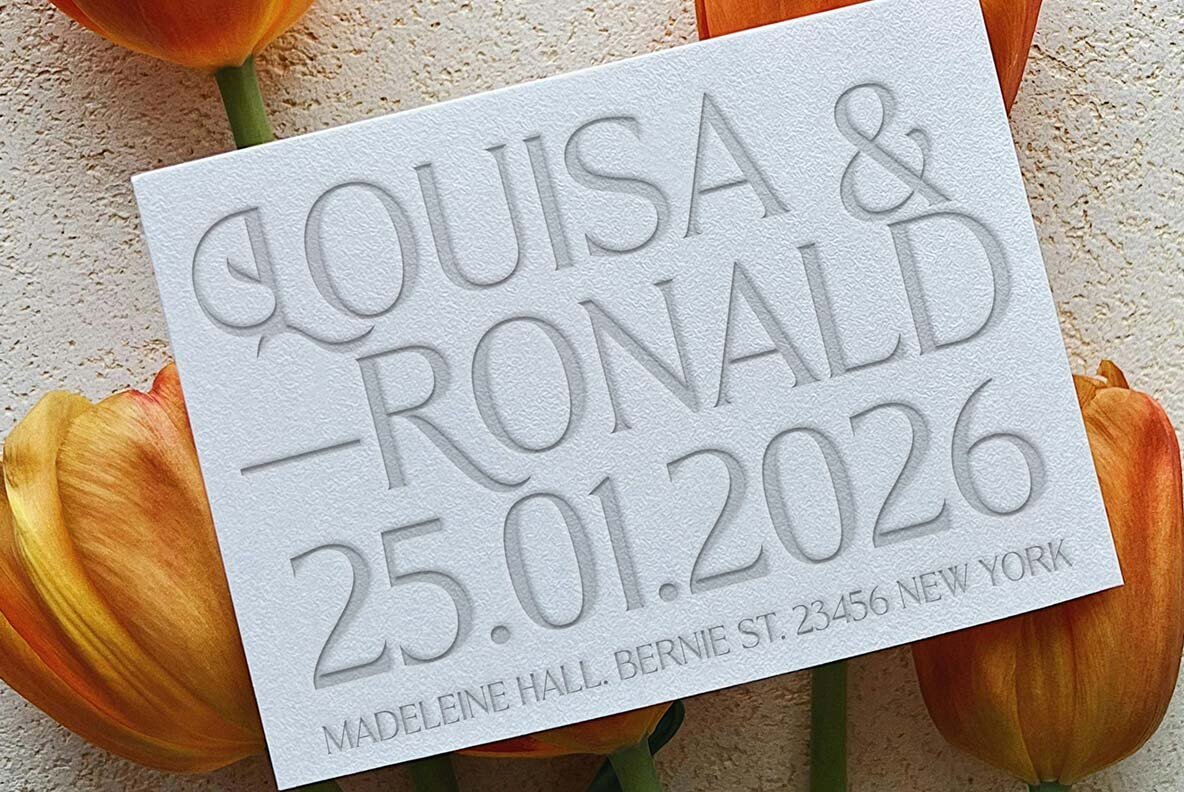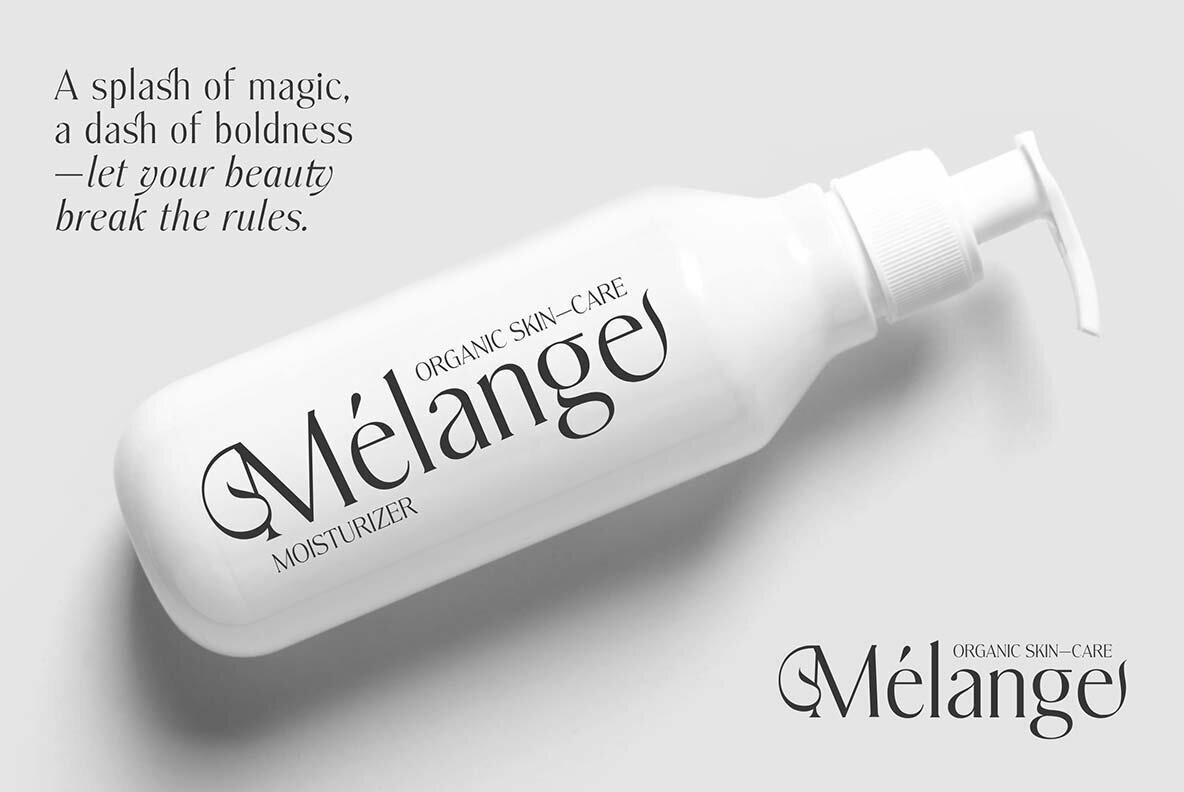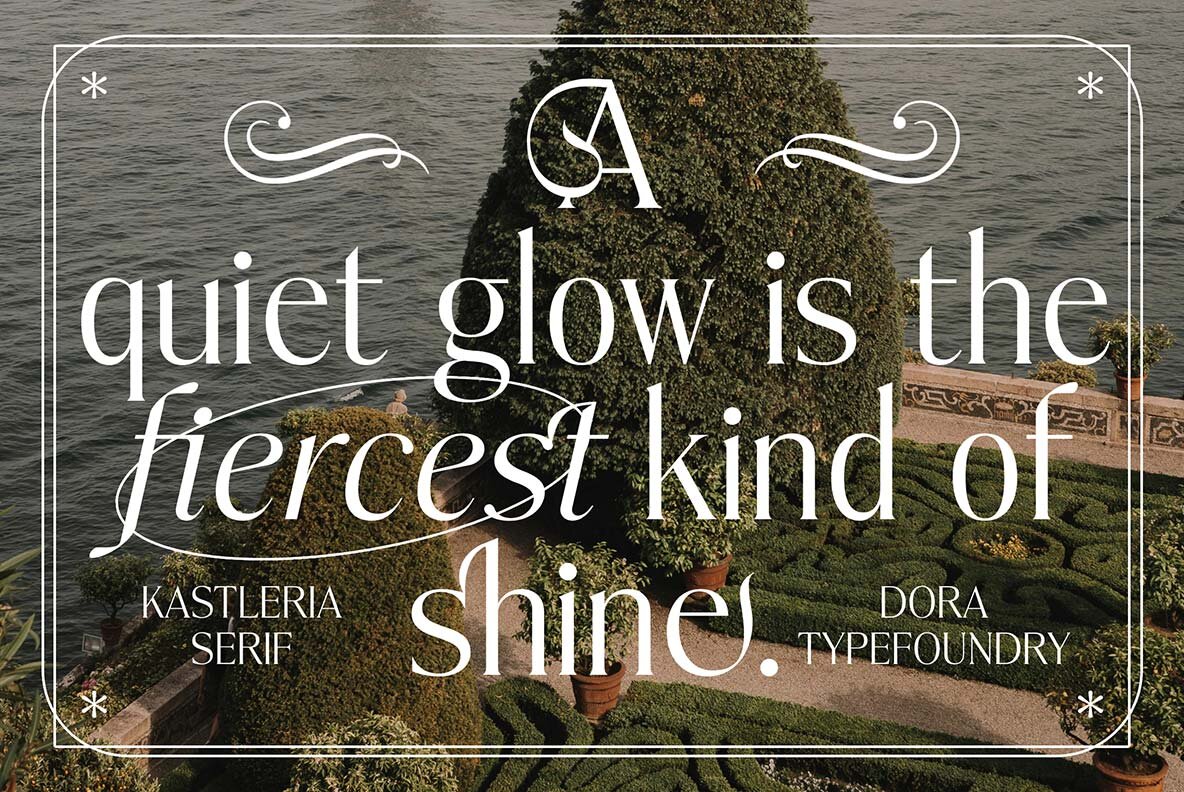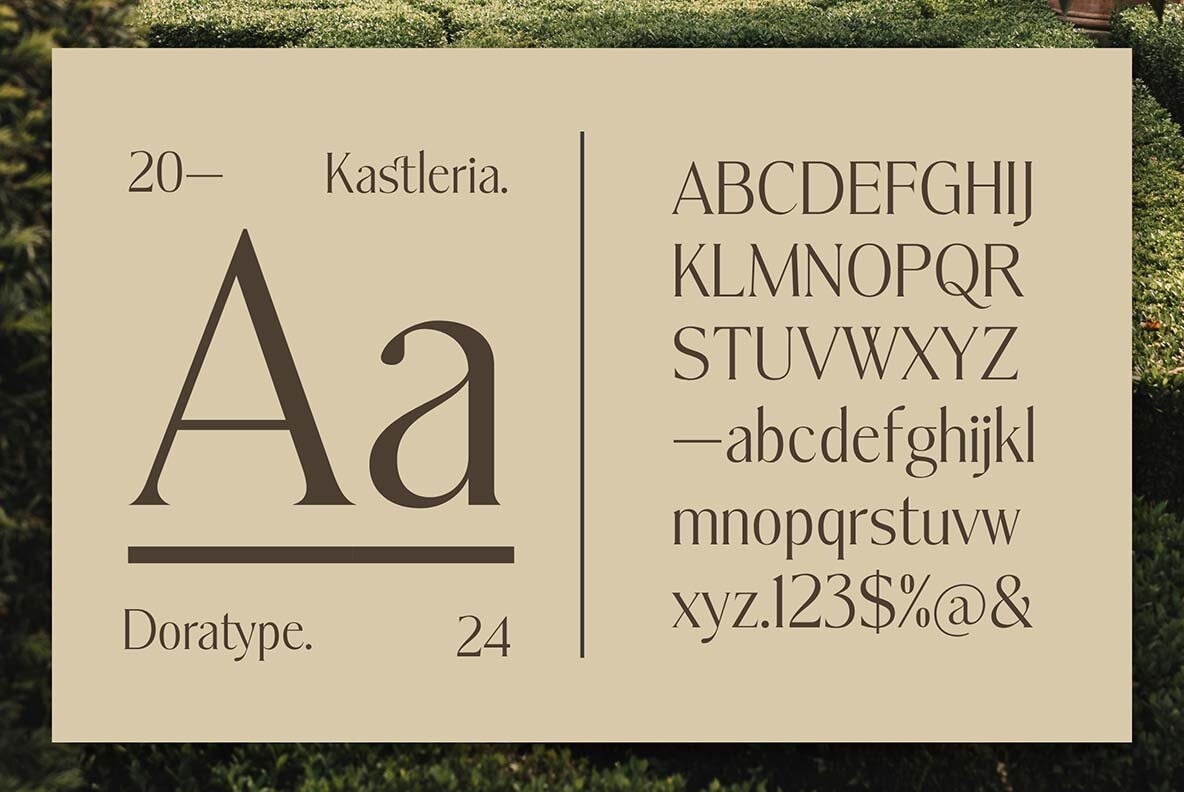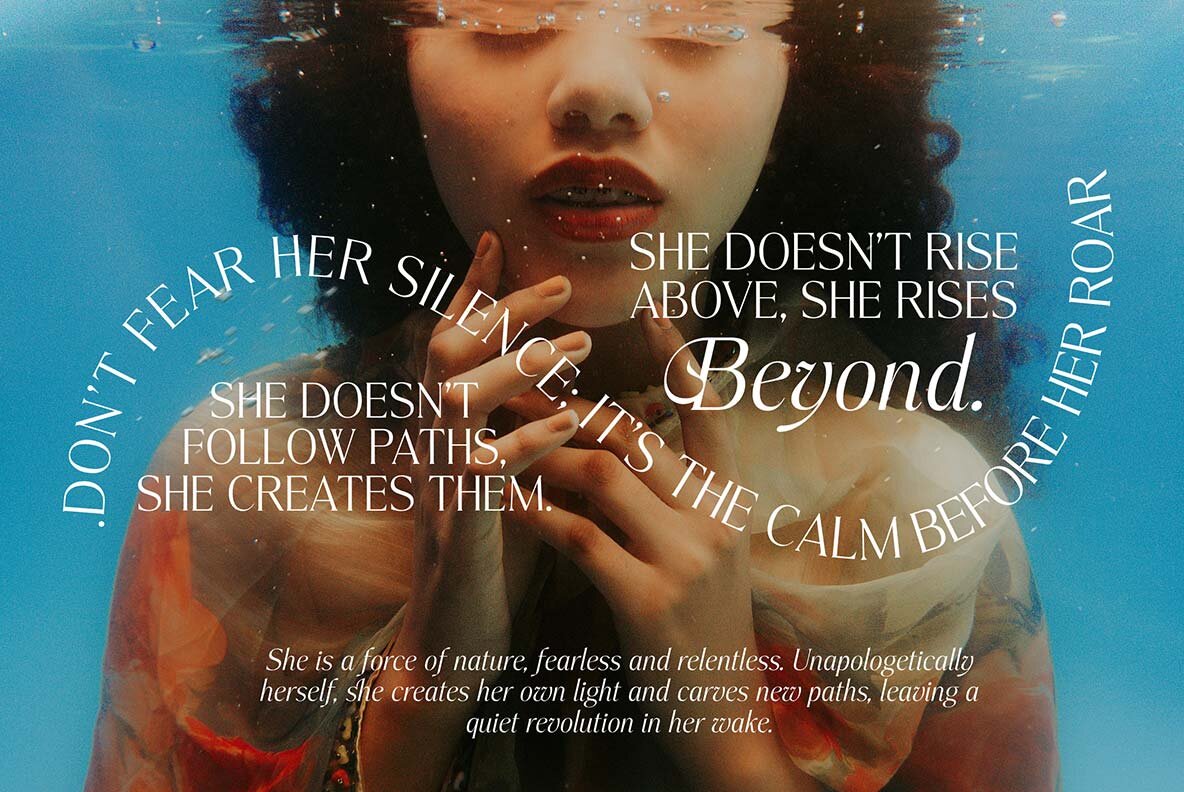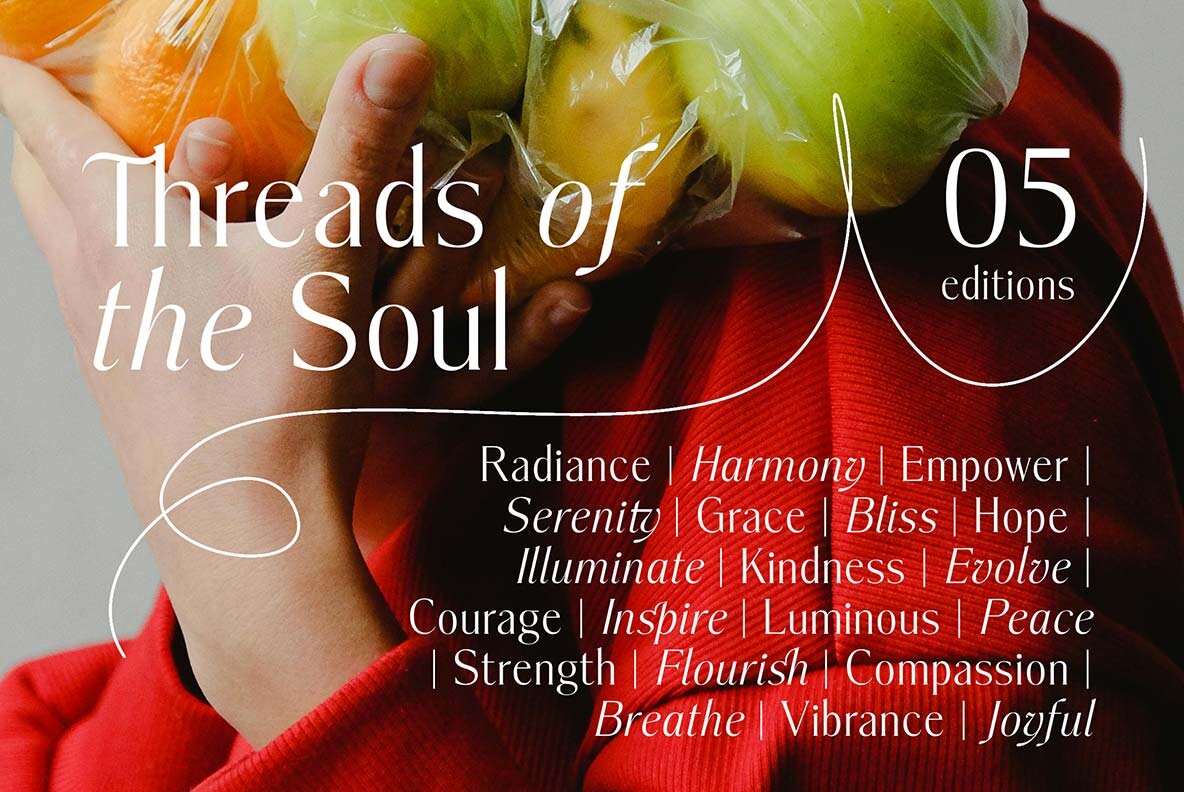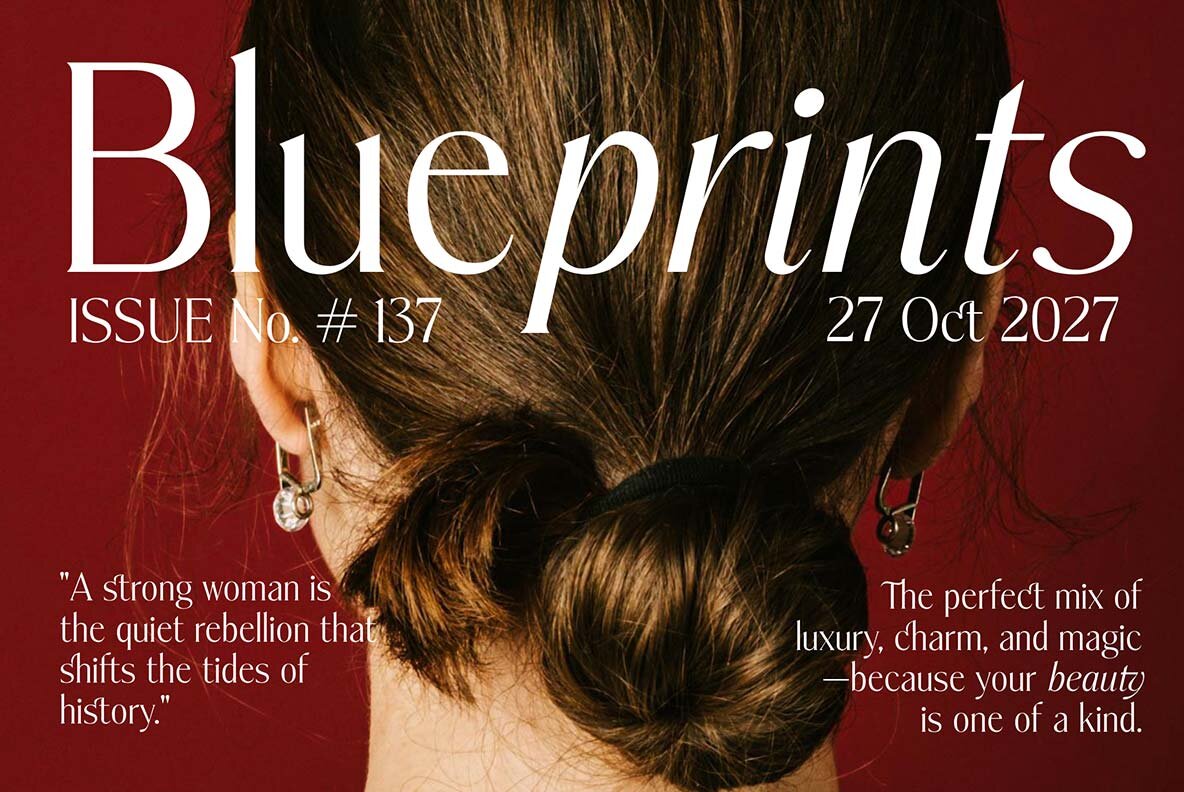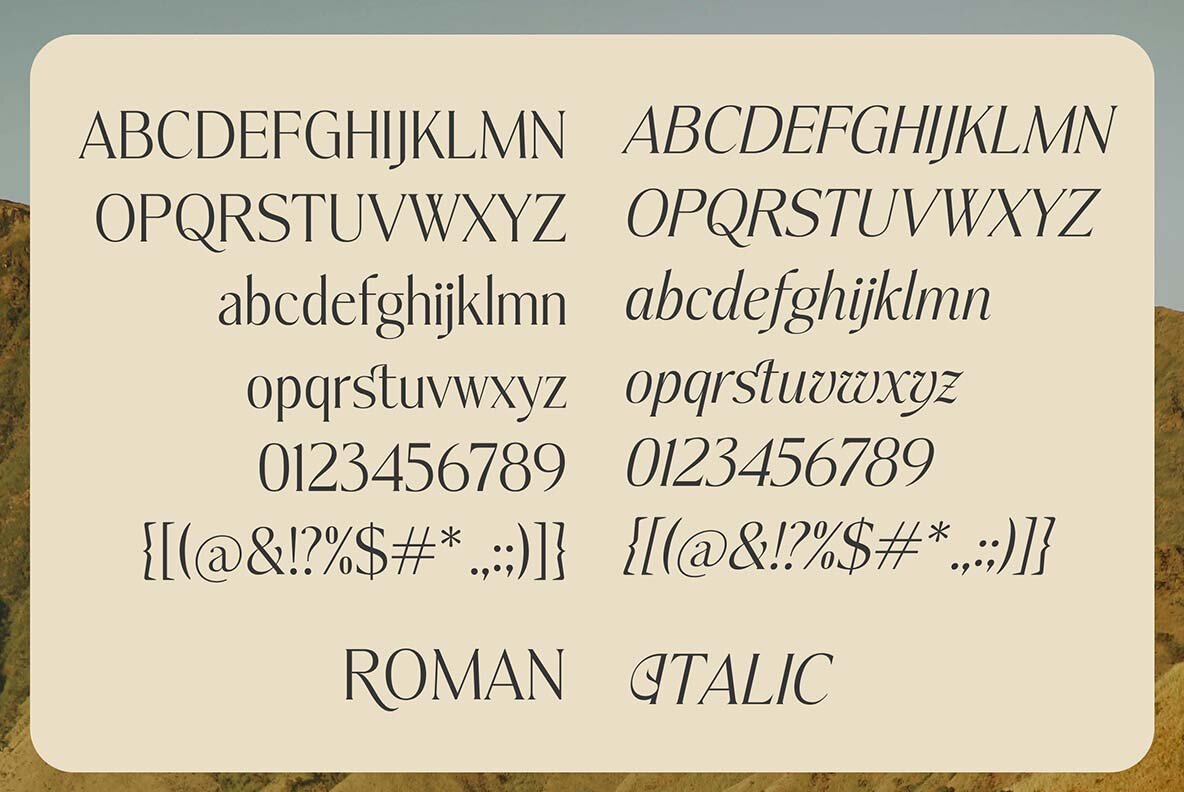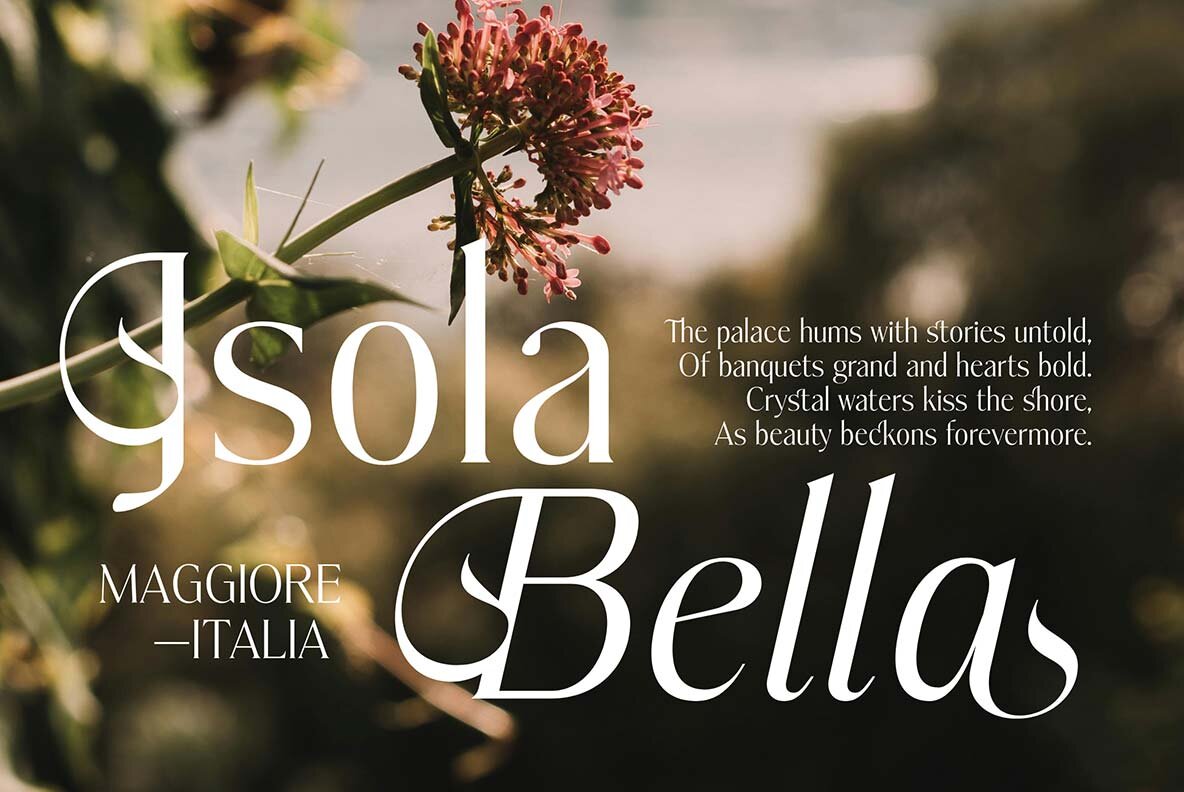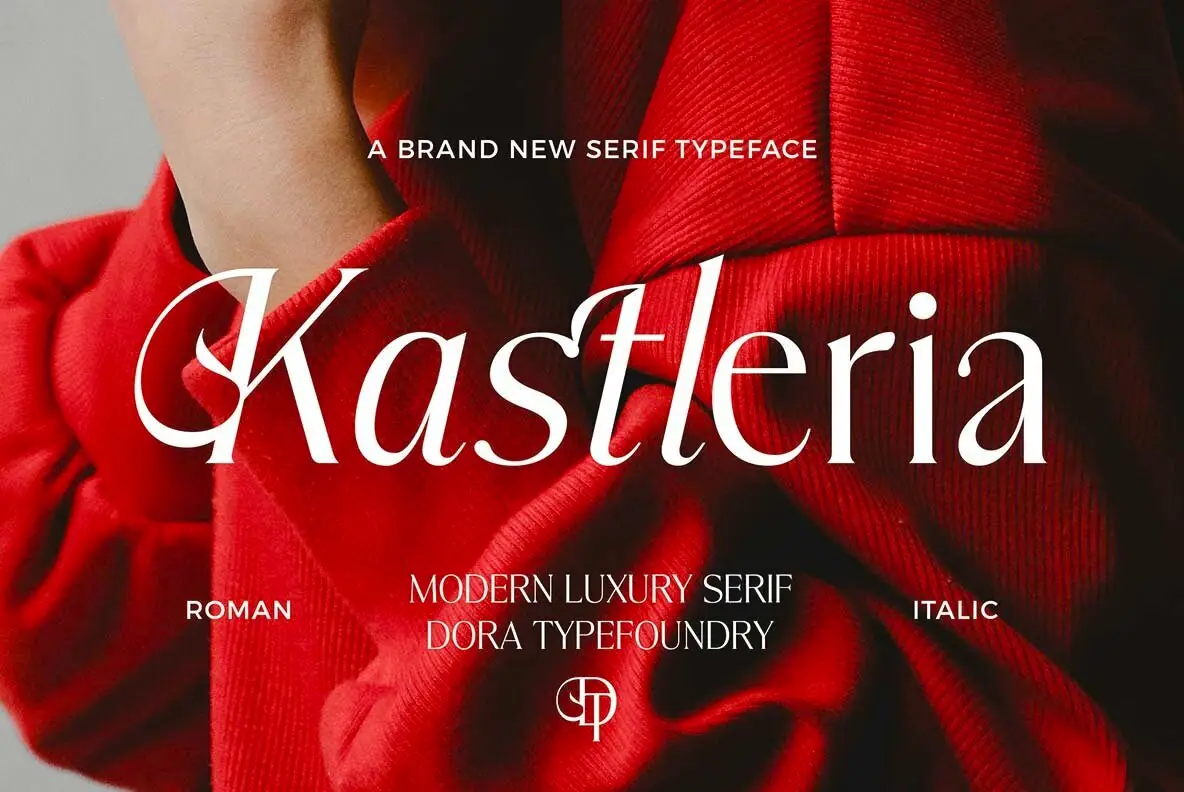
Kastleria Font
Kastleria presents a sophisticated serif typeface with a definitive italic counterpart. Designed to infuse your work with refinement and contrast, it boasts clean lines and an enduring aesthetic, seamlessly blending classic style with modern adaptability. Perfect for a multitude of applications, this font enhances branding, logos, editorial layouts, and invitations with ease.Kastleria: Sophisticated Serif Typeface